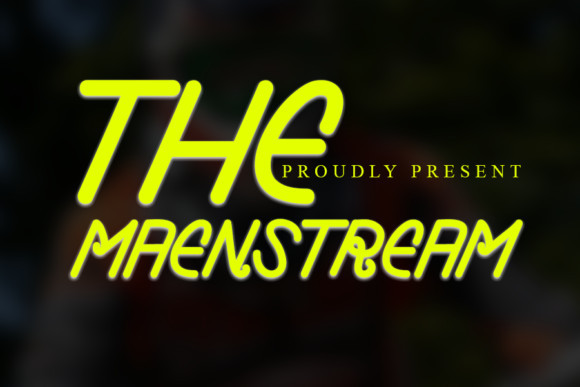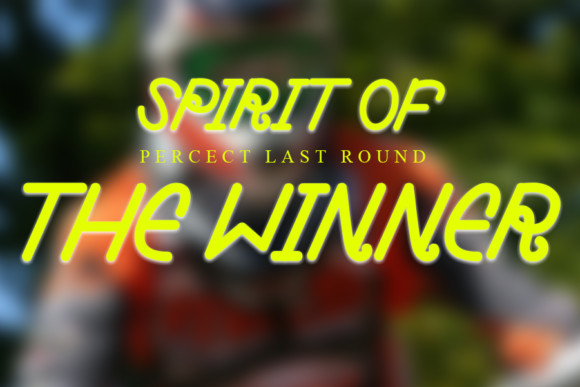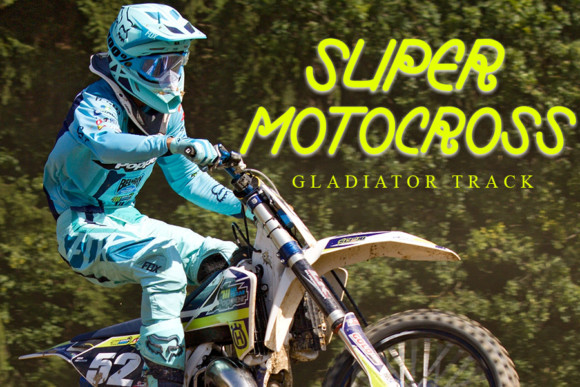
The Maenstream Font
The Maenstream is an elegant sans serif font, carefully handcrafted to become a true favorite. Its casual charm makes it appear wonderfully down-to-earth, readable and, ultimately, incredibly versatile. This font will look outstanding in any context, whether it’s being used on busy backgrounds or as a standalone headline!